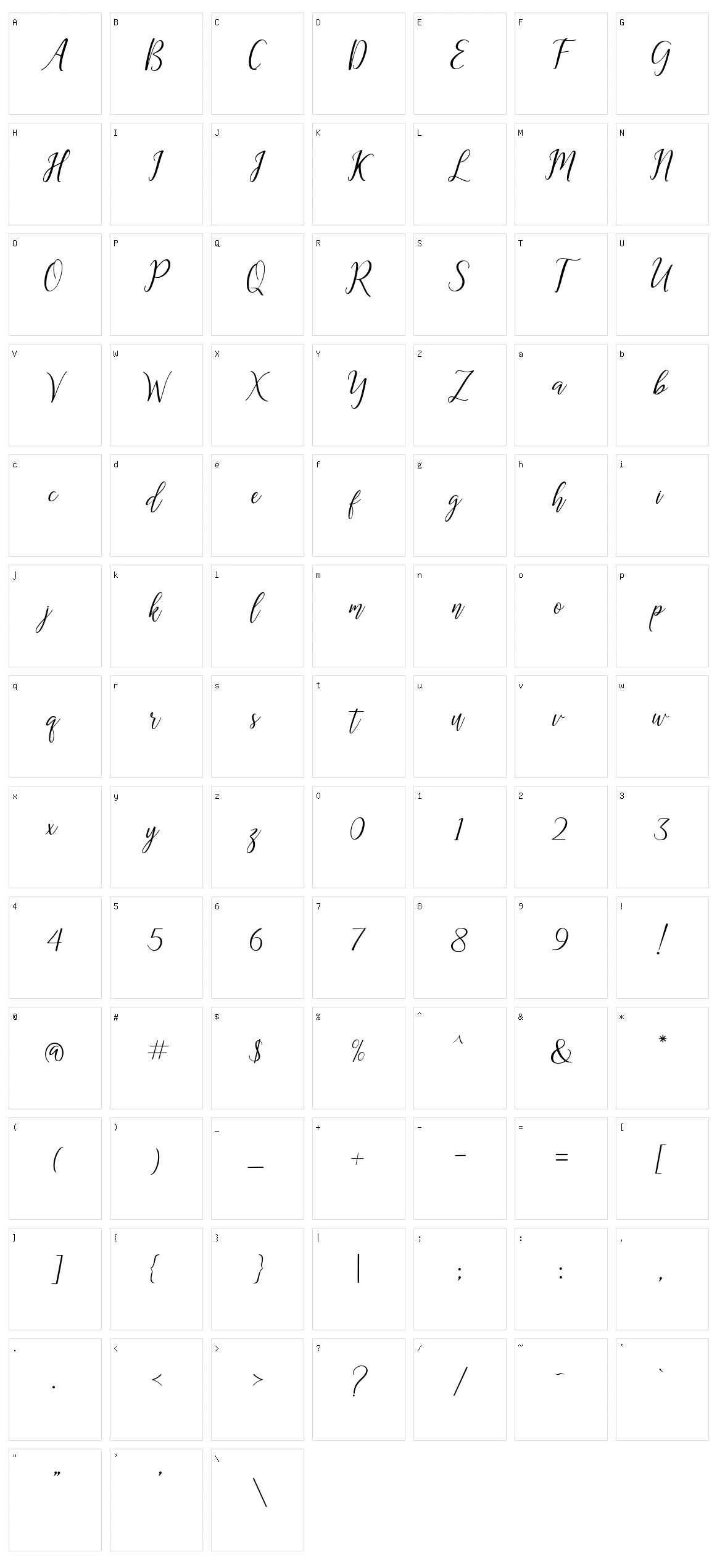
The free font The Dance Signature is carefully designed by AminMario, showcasing a thoughtful balance of creativity and usability and falls under the Script font style. When you download the ZIP file, it contains only 27.49 KB of font files, making it lightweight and quick to download. Please review the license details below to understand permitted usage and distribution rights. If license information is not available, we recommend using this font for personal projects only or contacting the author directly for commercial usage permissions.